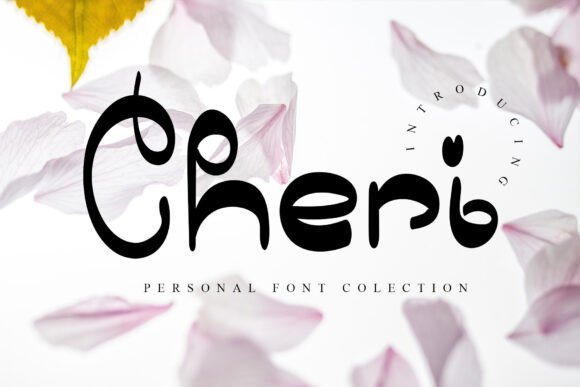
Cheri Font Download Script Fonts: Typography is more than just letters on a page — it’s a silent storyteller. The right font can turn a simple message into a visual experience that lingers in the viewer’s mind. Cheri Font is one of those special typefaces that instantly sets a mood: cheerful, warm, and a little bit whimsical.
With its unique handcrafted style, Cheri offers designers a balance between elegance and fun, making it a perfect choice for personal, creative, and event-based projects. Whether you’re designing a heartfelt wedding invitation or crafting playful school project artwork, Cheri’s charm shines through.
1. First Impressions: The Personality of Cheri
Cheri isn’t just a font — it’s a mood. It feels friendly without being childish, sophisticated without being stiff. Each letter is drawn with care, giving it a human warmth that can’t be replicated by generic typefaces.
When you first see Cheri in action, you might notice:
Rounded, soft shapes that give it a gentle feel.
Artistic letterforms that look like they were created with a skilled designer’s pen.
Balanced spacing that ensures readability while keeping its decorative touch.
This combination makes Cheri equally suitable for formal occasions (weddings, corporate invites) and casual projects (party flyers, greeting cards, scrapbooks).
2. The Creative Vision Behind Cheri
The design of Cheri reflects professional craftsmanship blended with artistic freedom. It’s not rigid like a corporate sans-serif, nor overly ornate like heavy calligraphy. Instead, it strikes a middle ground — decorative enough to stand out, yet refined enough for polished projects.
Think of Cheri as a modern twist on classic handwriting styles. It’s the kind of font that works equally well on digital designs and printed materials, giving creatives the flexibility to experiment without worrying about losing that handcrafted feel.
3. Ideal Uses for Cheri Font
Because of its adaptable personality, Cheri finds a home in countless design settings. Here are just a few ways it can be used:
Event Invitations
From elegant wedding invites to colorful birthday party cards, Cheri’s friendly elegance adds a personal touch.
Greeting Cards
Perfect for thank-you notes, holiday cards, and messages of encouragement.
Posters & Flyers
Whether you’re advertising a school fair, an art exhibition, or a charity event, Cheri brings attention without overwhelming the design.
Creative School Projects
Students love Cheri for its fun yet refined appearance, making their assignments look well-thought-out and visually engaging.
Digital Graphics
Social media posts, blog headers, and YouTube thumbnails all benefit from Cheri’s playful but professional vibe.
5. Pairing Cheri with Other Fonts
Pairing fonts is like matching outfits — some combinations work perfectly, while others clash. Cheri pairs best with fonts that balance its decorative nature:
Cheri + Lato – Keeps things modern and clean.
Cheri + Playfair Display – Adds a touch of sophistication for formal designs.
Cheri + Raleway – Minimalist sans-serif that balances Cheri’s personality.
Cheri + Open Sans – Excellent for readable body text alongside decorative headlines.
6. Why Designers Love Cheri
Cheri’s popularity comes from a mix of practicality and emotional appeal:
Versatile style – Works across print, web, and branding projects.
Unique flair – Its personality makes designs instantly memorable.
Beginner-friendly – Easy to work with, even for those new to design software.
7. Tips for Designing with Cheri Font
To get the most out of Cheri, keep these tips in mind:
Use it as a focal point – Headlines, titles, and logos are perfect places for Cheri to shine.
Avoid overcrowding – Pair it with simpler fonts to keep layouts balanced.
Experiment with color – Cheri looks stunning in soft pastels for weddings or bold, vibrant colors for parties.
Mind the spacing – Adjust letter spacing slightly for large titles to maintain clarity.
8. Alternatives to Cheri Font
If you love Cheri’s vibe but want to explore similar fonts, try:
Pacifico – A fun, flowing script.
Amatic SC – Quirky and casual handwritten style.
Final Thoughts
The Cheri Font is a beautiful reminder that fonts can be both expressive and functional. It captures a sense of joy, elegance, and handcrafted care that elevates any design it touches. Whether you’re creating for a loved one, a client, or a personal project, Cheri helps you deliver your message with warmth and style.